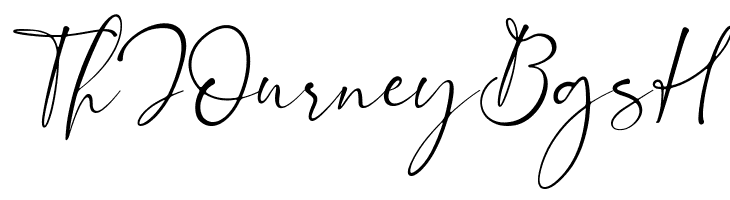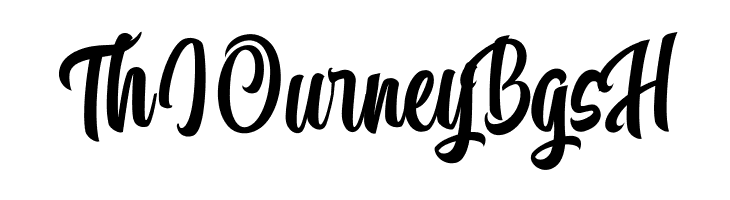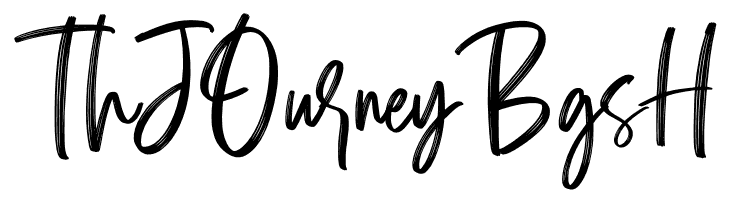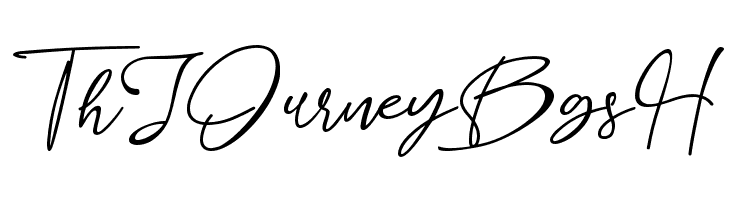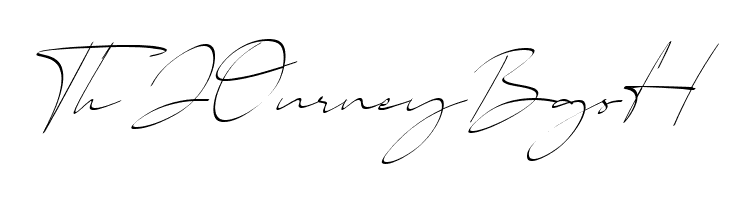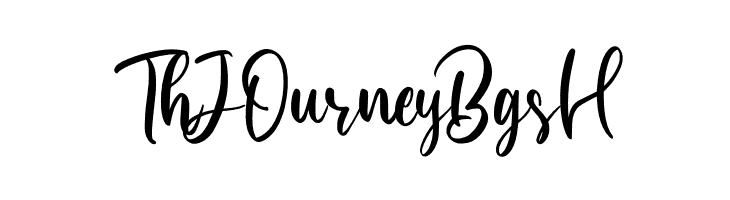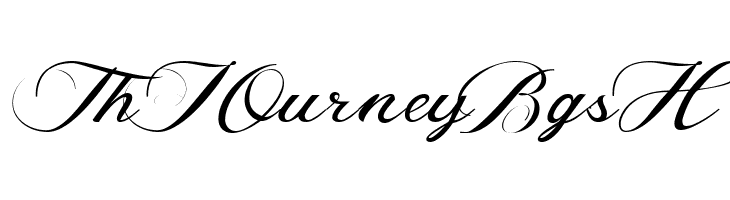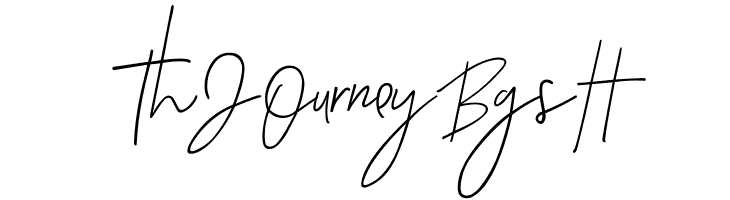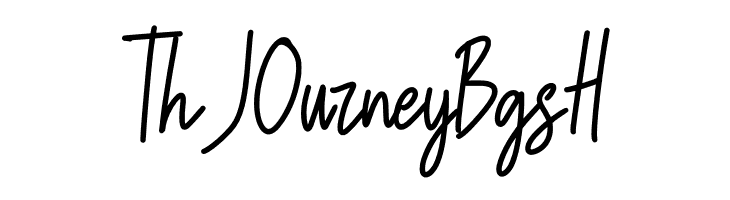
An elegant, cursive script font with decorative flourishes and high contrast.
A dynamic, expressive handwritten font with fluid, cursive strokes.
An elegant, cursive font with fluid, calligraphic strokes.
A lively, expressive script font with a handwritten style.
A bold, cursive font with a flowing, handwritten style and italic slant.
A bold, cursive font with a playful and energetic style.
A dynamic and expressive handwritten font with fluid strokes and playful curves.
A fluid and dynamic handwritten font with a casual and creative style.
A flowing, cursive font with elegant, sweeping lines and a handwritten appearance.
A flowing, elegant script font with a handwritten style.